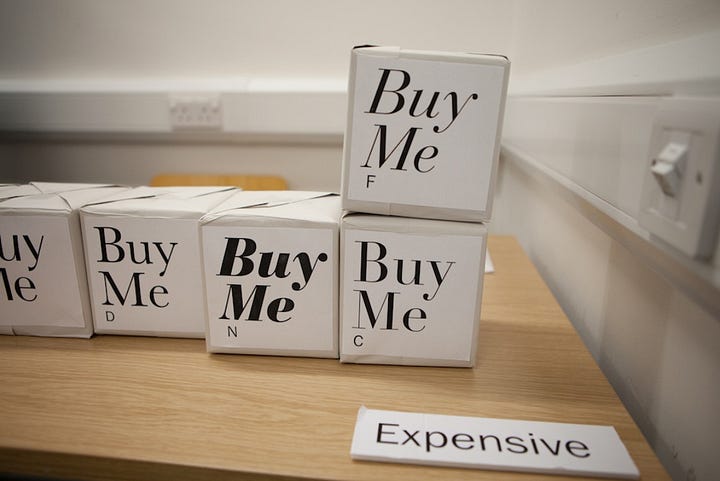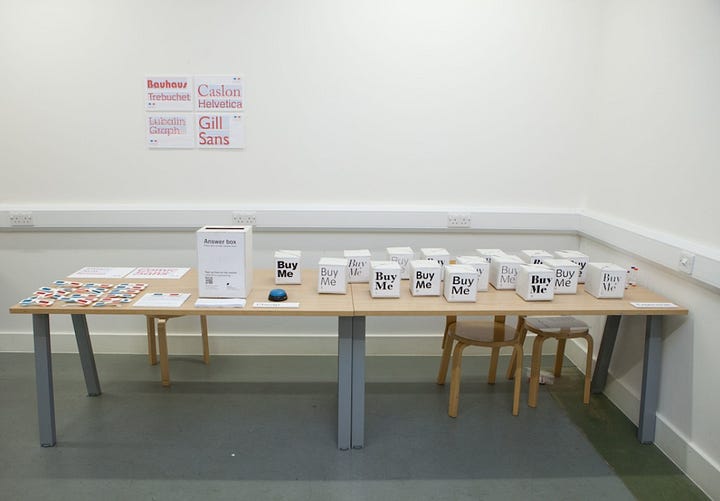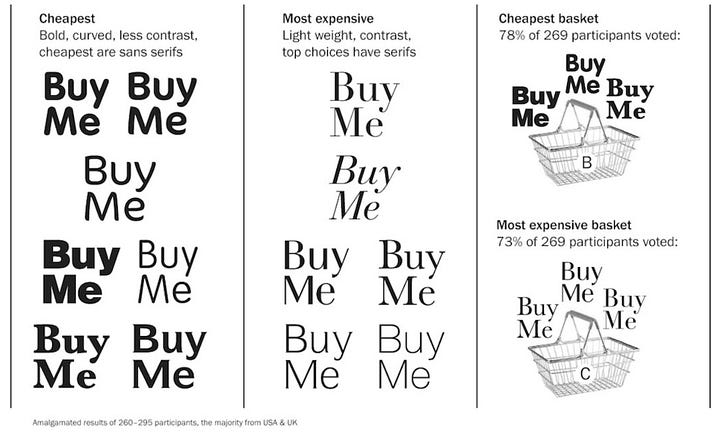
AIGA Eye on Design. The World’s Most Expensive-looking Font Might Surprise You (Archive)
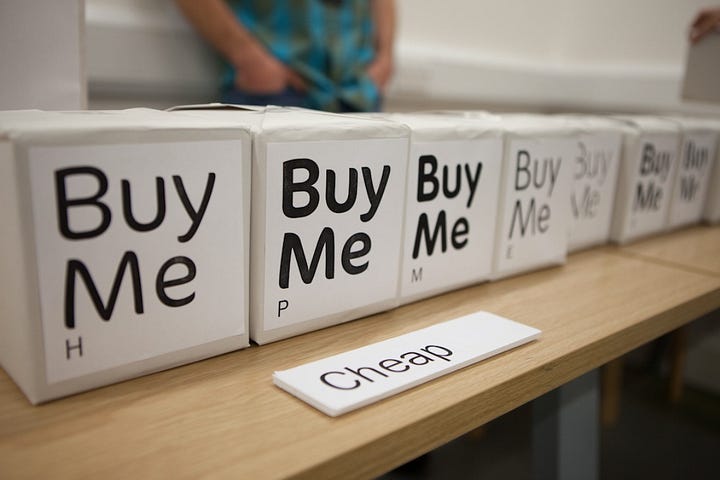
Sarah Hyndman’s cost survey at the V&A, London. Photos by David Owens.
When you hear the word “luxury,” it’s easy to conjure up the colors gold, silver, and velvety purple; yet when it comes to typography, what we associate with wealth is less clear-cut. For the ancient Greeks, rare and precious purple ink came from sea snails found deep in the ocean…